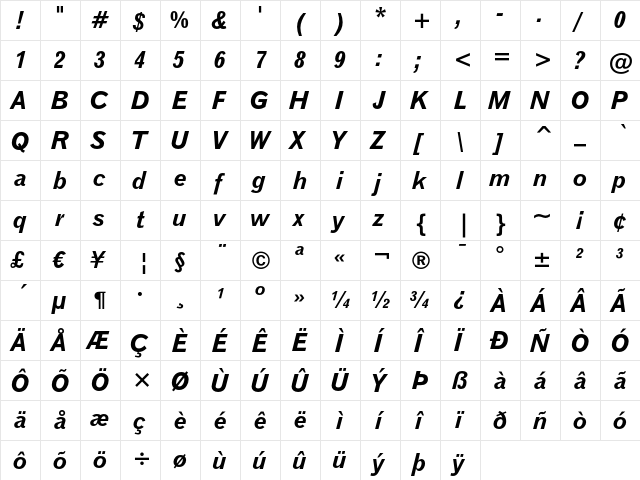
Gothic 720 Bold Italic
Design Context for Gothic 720 Typeface
Gothic 720 takes a clean, functional approach — its unadorned letterforms prioritise legibility and work reliably across screen and print environments. Its italic angle brings a sense of urgency and motion to the letterforms. The heavy weight commands attention and anchors typographic hierarchies.
Well-suited to navigation labels, product packaging, and anywhere legibility at scale is essential.
Font Pairing: Use Gothic 720 for headlines alongside a lighter-weight sans or serif for body copy to establish clear visual hierarchy.
Pro Tip: Use Gothic 720 for UI labels, navigation, and short-form body copy where clean legibility is the priority.